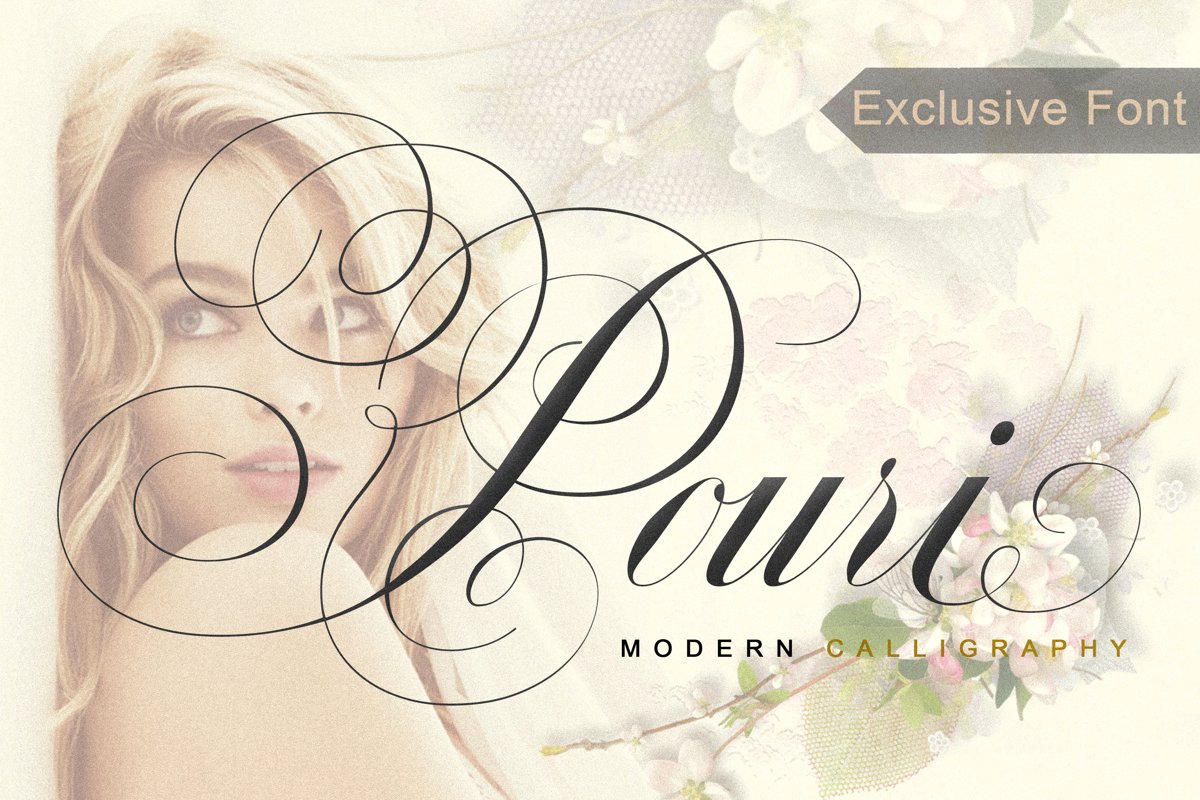
Pouri
Hi Designer, After passing a few weeks, finally I can finish a font of this script. Yes, this is a work with a classic pattern, I modify it in a modern style to make it look more elegant and luxurious.
Pouri is a classic font with a modern style that is very suitable for wedding media, book covers, greeting cards, logos, branding, business cards and certificates, even for any design work that requires classics, formal or luxurious.